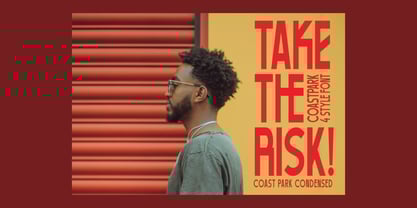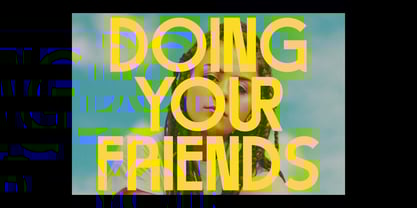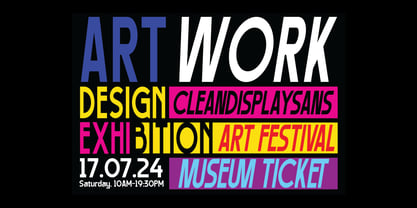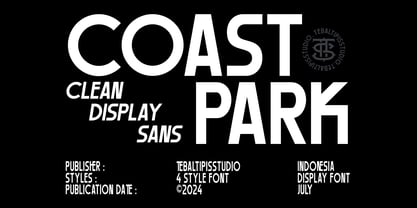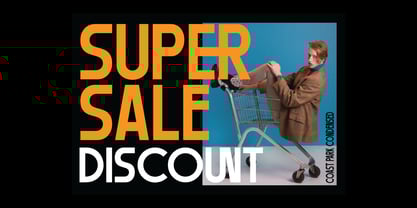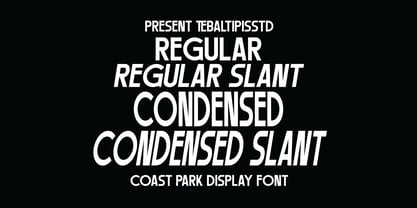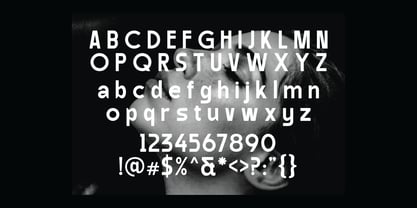
Coast Park Display
by Tebaltipis Studio
The Coast Park Display Font Family was designed by Dzulka Elfira and published by Tebaltipis Studio. Coast Park Display contains 4 styles and family package options. More about this family
Coast Park is a contemporary sans serif that offers a straightforward interpretation of the English humanist sans, gently blending rigid tones over a warm structure. It’s available in 4 Style and it comes with an Condensed Slant set. This simple and carefully crafted typeface, with traits flirting with geometry, becomes a powerful workhorse. Its versatility makes it ideal for both paragraphs and bigger typesettings, a great choice for branding, signage, editorial, and more.
Designers: Dzulka Elfira
Foundry: Tebaltipis Studio